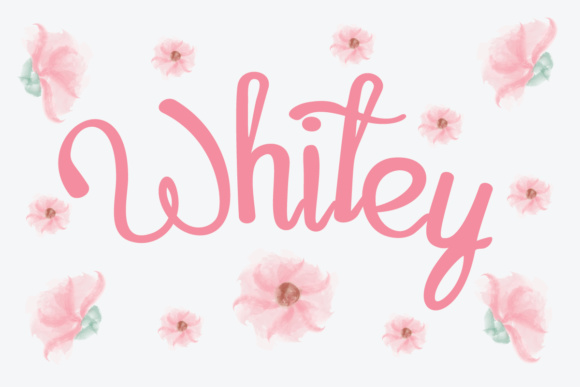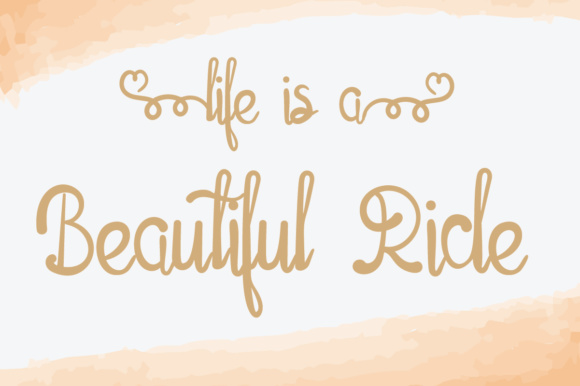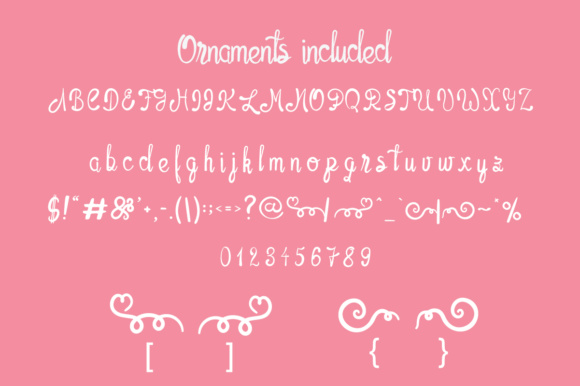
Whitey Script Font
About Whitey Script Font
Whitey is a playful handwritten font, with a smooth rounded exterior. It comes with 2 heart-shaped swashes, which can be added easily by adding the brackets [ ] to a word (e.g. [love] ).